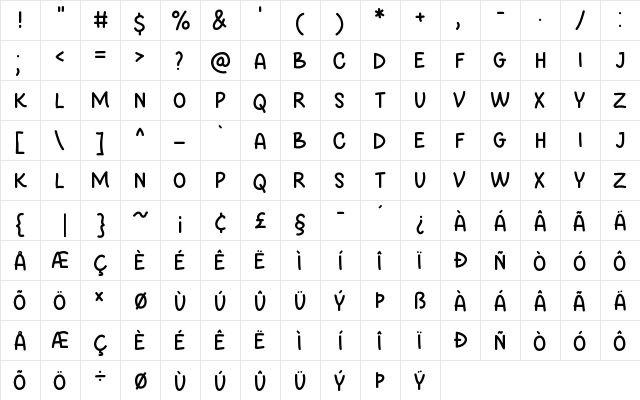
Be Honest Regular
Design Context for Be Honest Typeface
Be Honest takes a measured approach to typography — its balanced proportions and neutral character make it a reliable workhorse for both digital and print work.